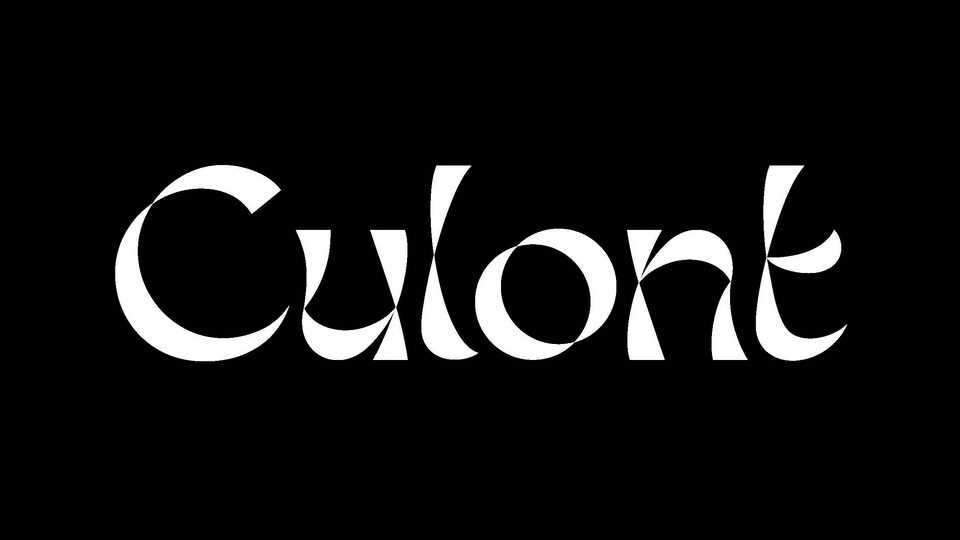
Download Culont font, a display typeface based on the way the letterform stems intersect. The axis of Culont is thicker and thinner strokes reflecting the Italian reversed contrast.
Designer: Sreenihal